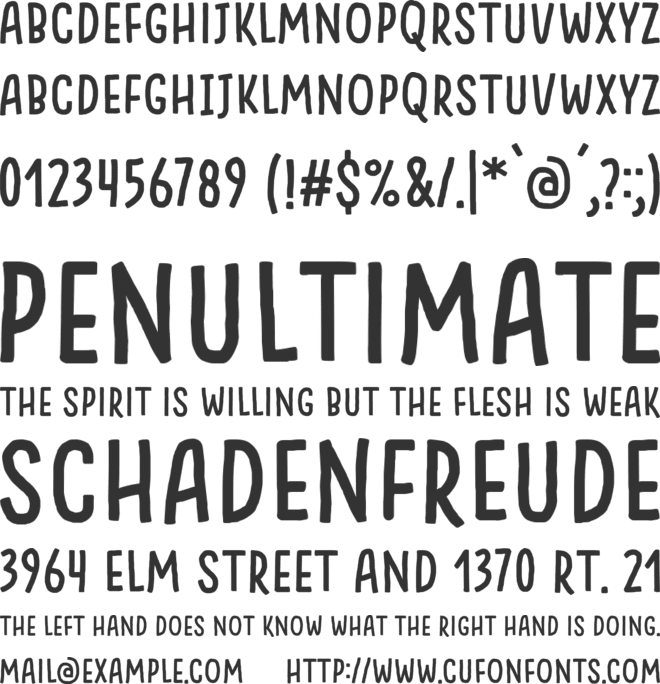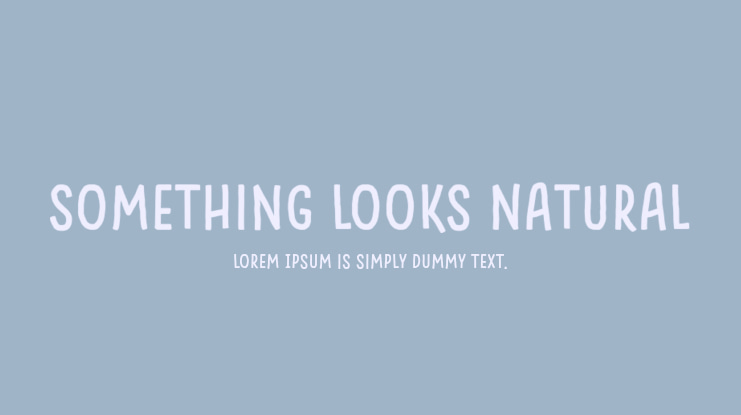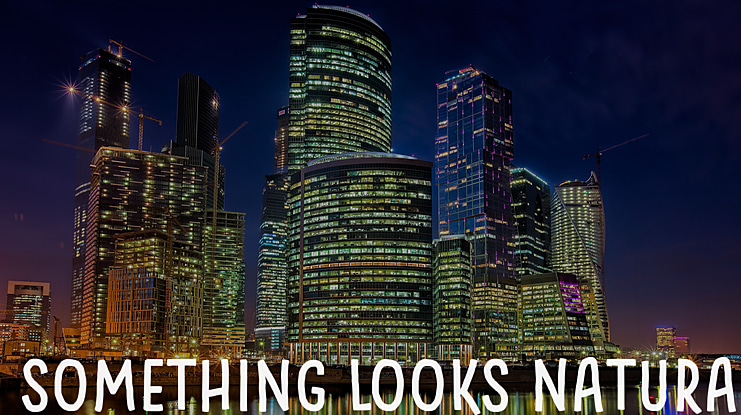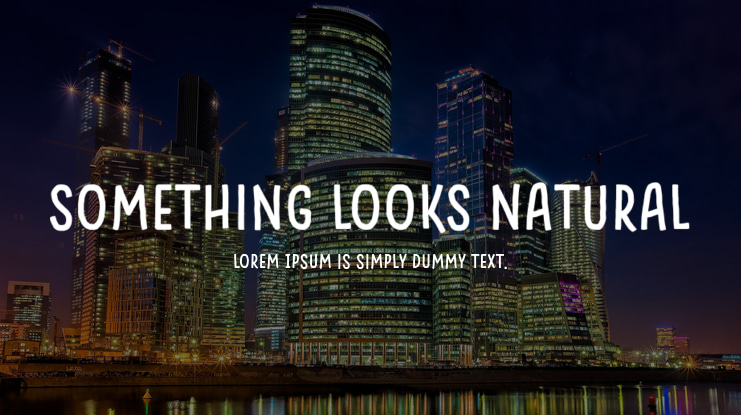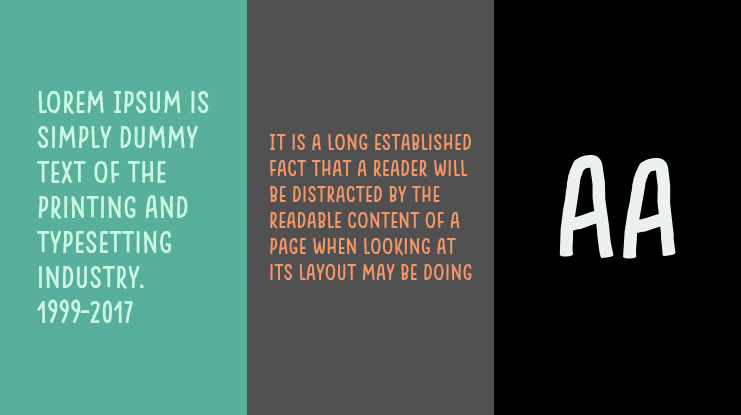
Something Looks Natural Font Family
Something Looks Natural is a a playful fun font that allows you to add a light-hearted touch to your designs. It comes with two variants: Regular & Italic